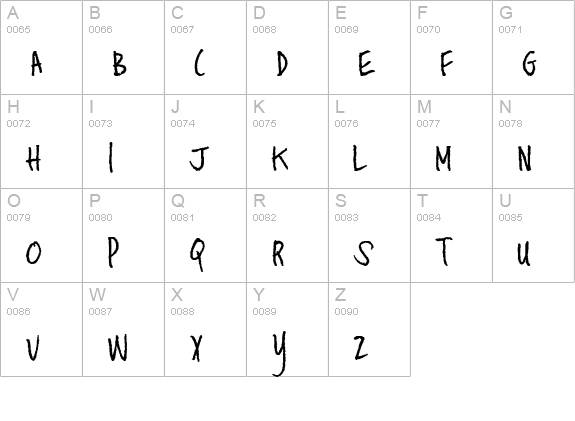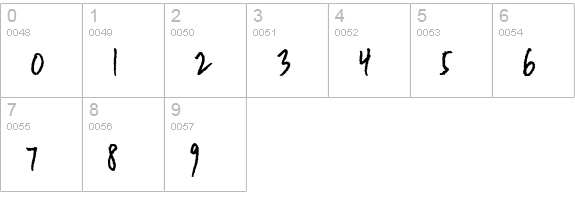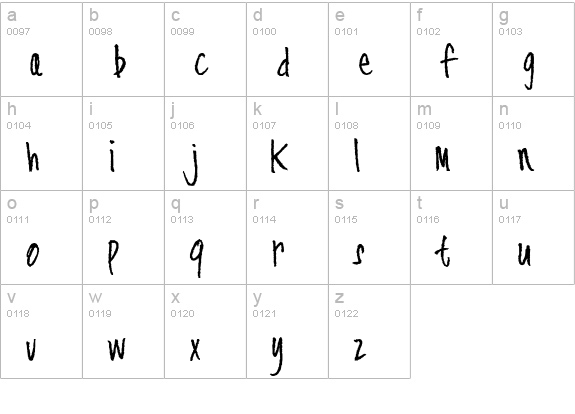
CK Rugged Font Details
Introducing CK Rugged font, a versatile and bold typeface that exudes strength and character. With its rugged edges and modern aesthetic, this font is perfect for projects that require a touch of toughness and personality. The CK Rugged font is free to download at FontsMarket.com, making it easily accessible for all your design needs. Whether you're creating posters, logos, or branding materials, this font is sure to make a statement. Embrace the rugged charm of CK Rugged font and elevate your designs to the next level.